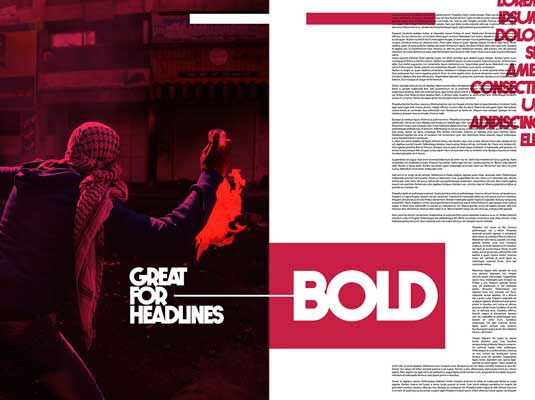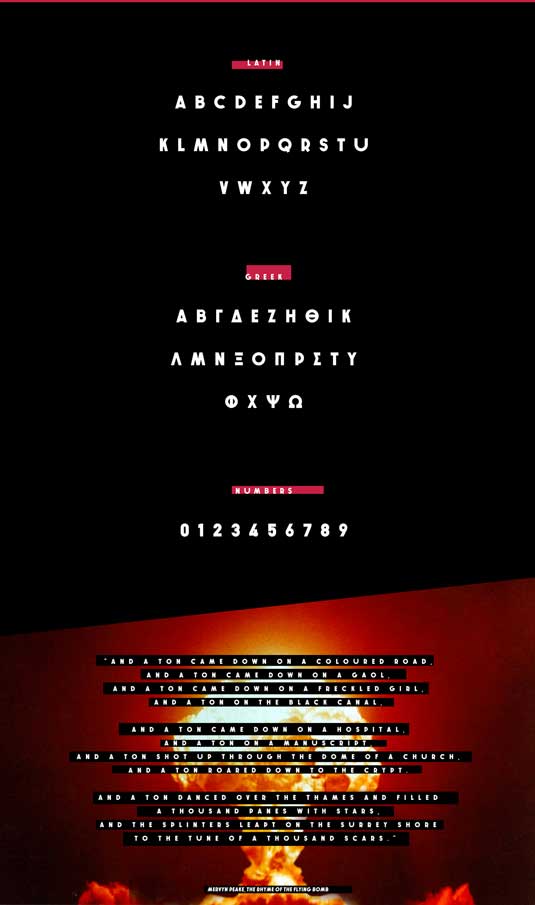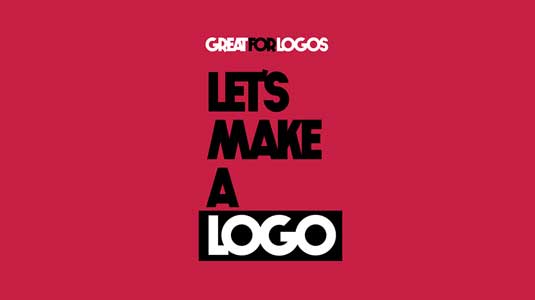
Font of the day: Bomb
Bomb by Iordanis Passas
Kicking off this week's top typefaces is Bomb, by graphic designer Iordanis Passas. A bod design, Bomb is great for creating eye-catching posters, headlines and more.